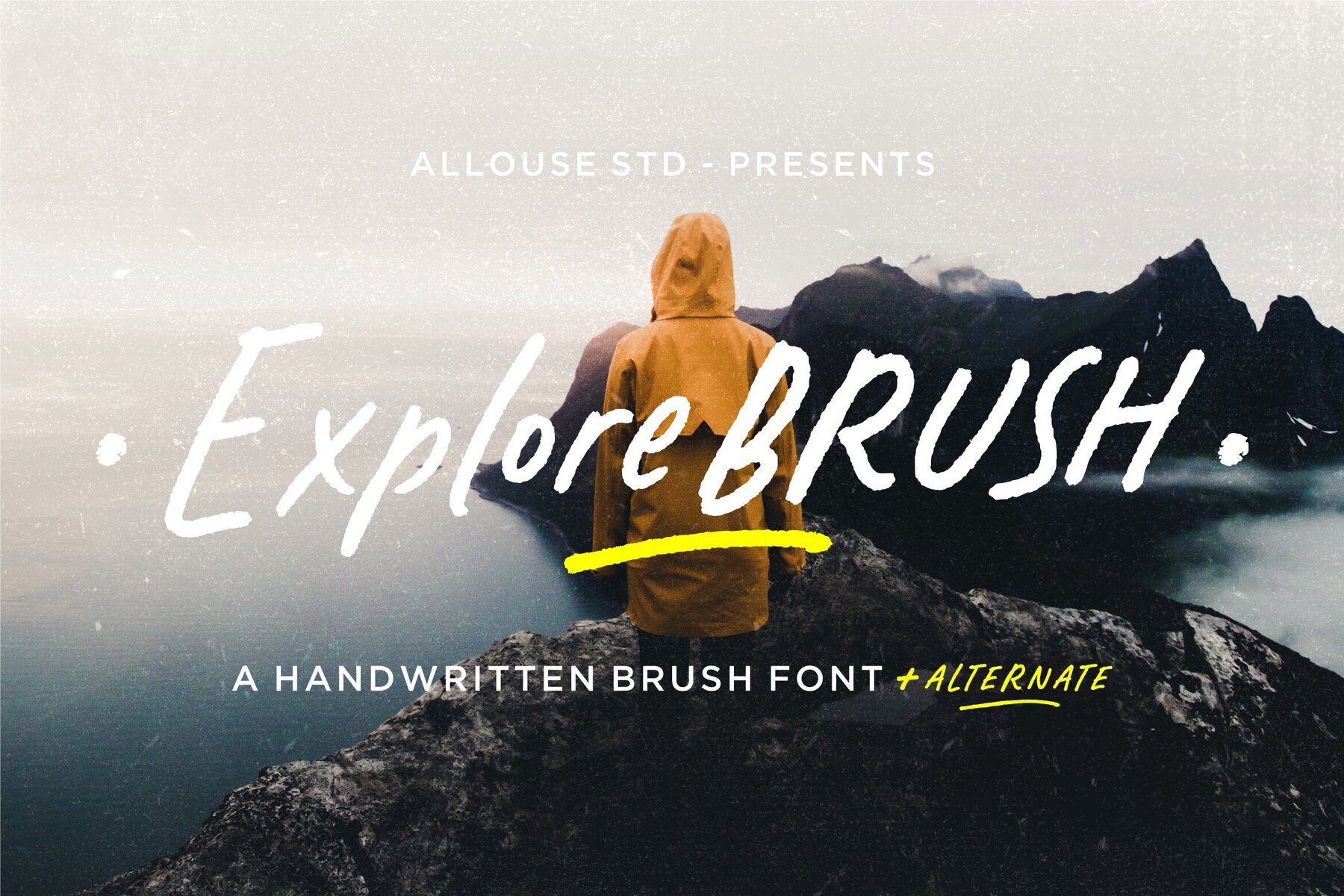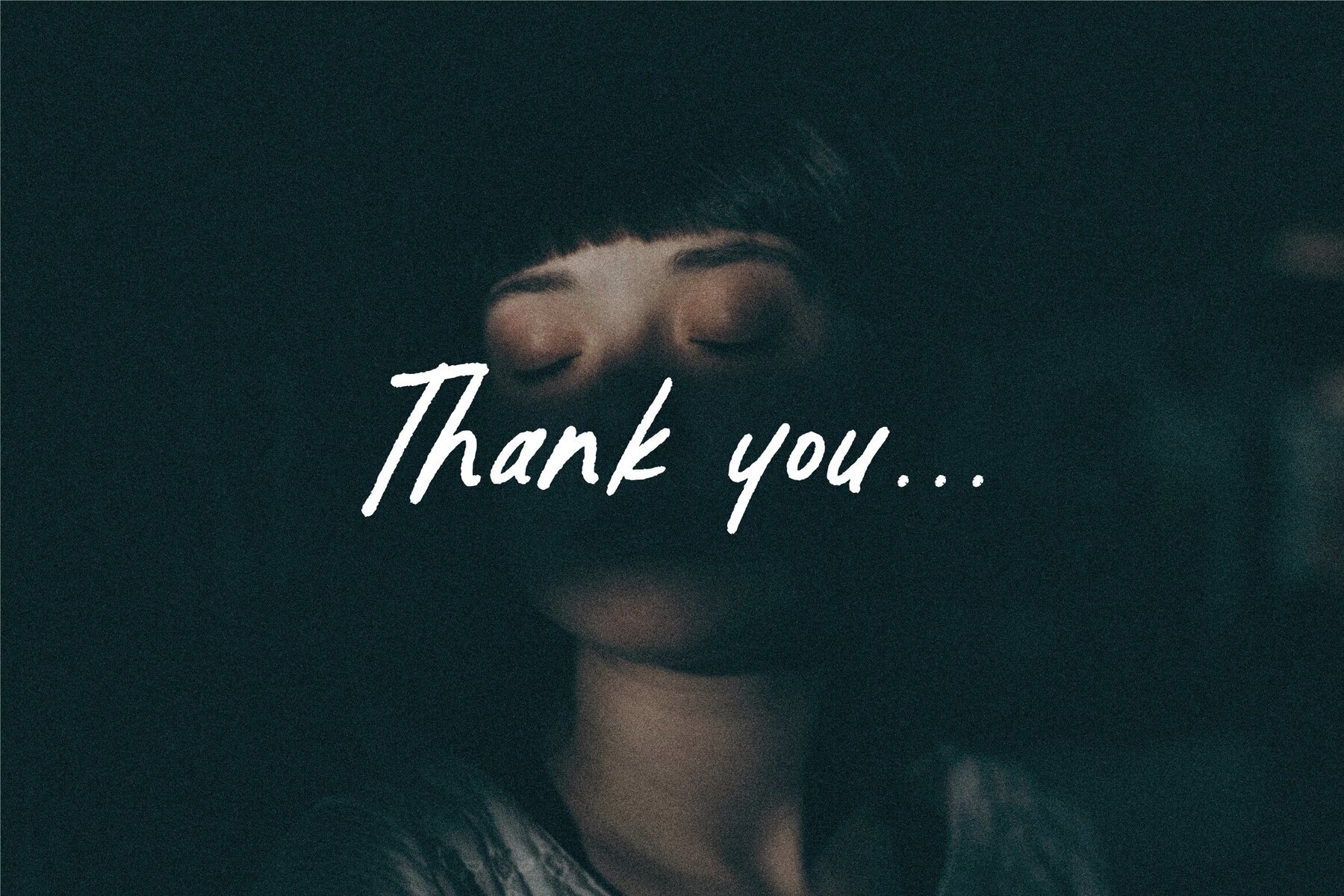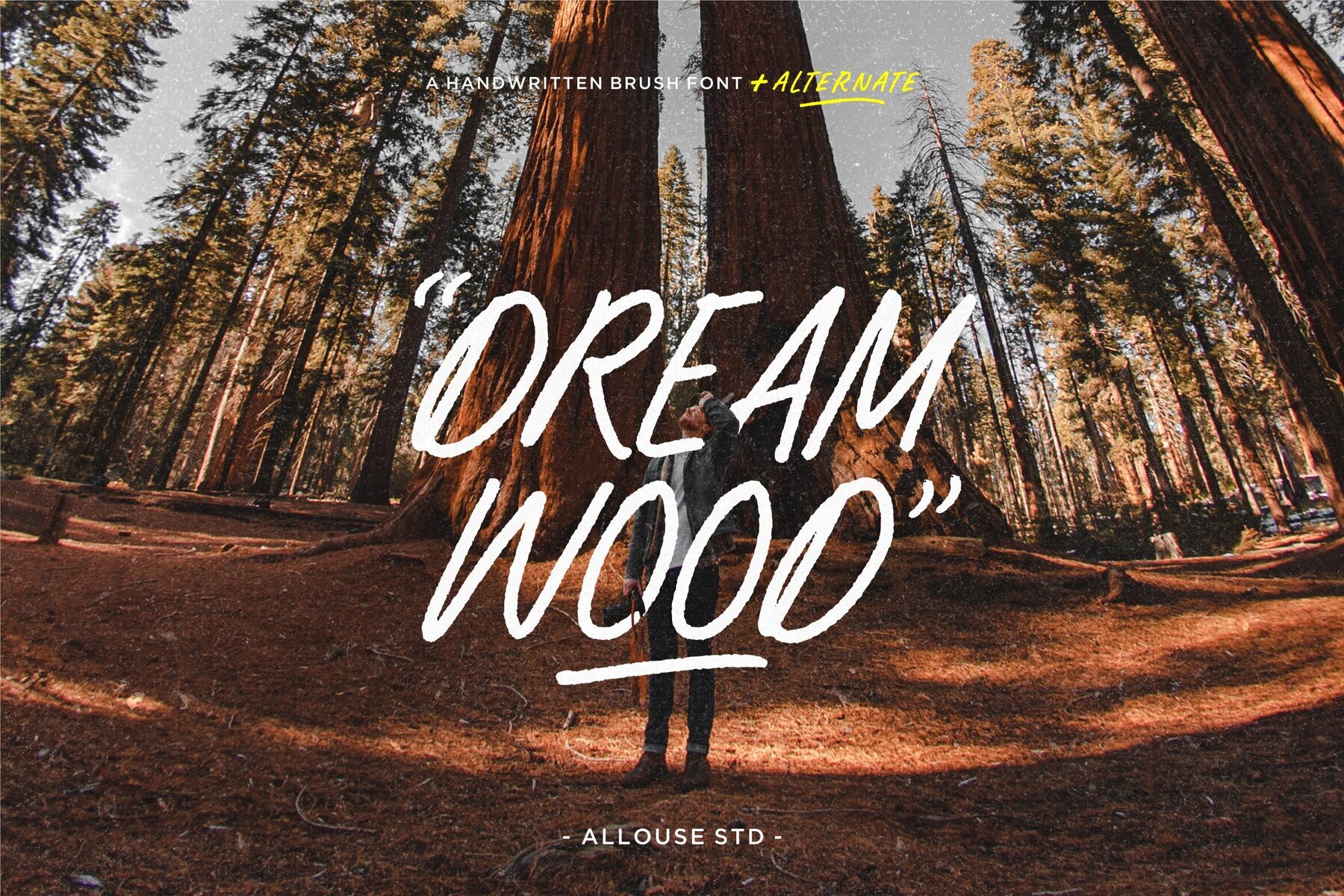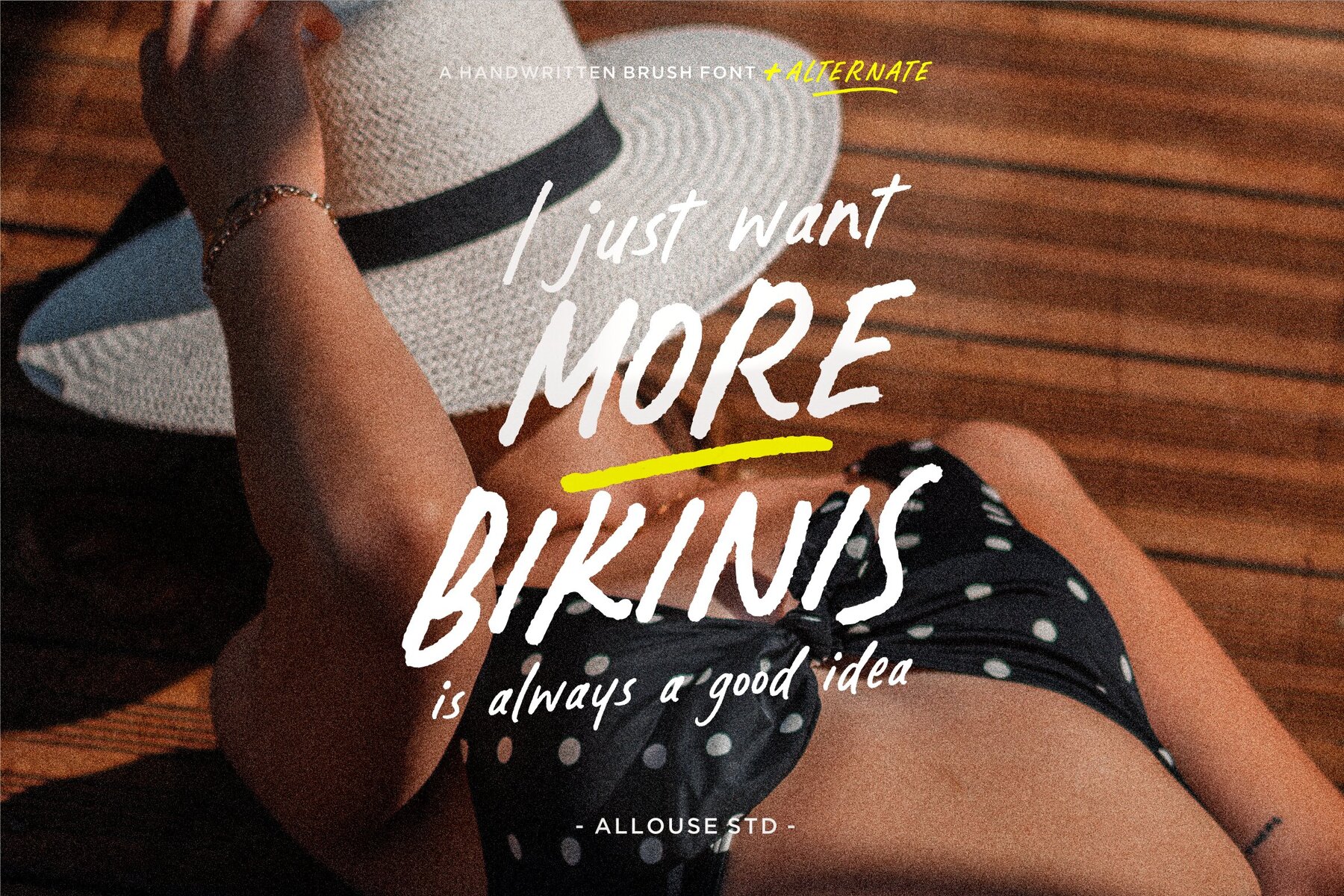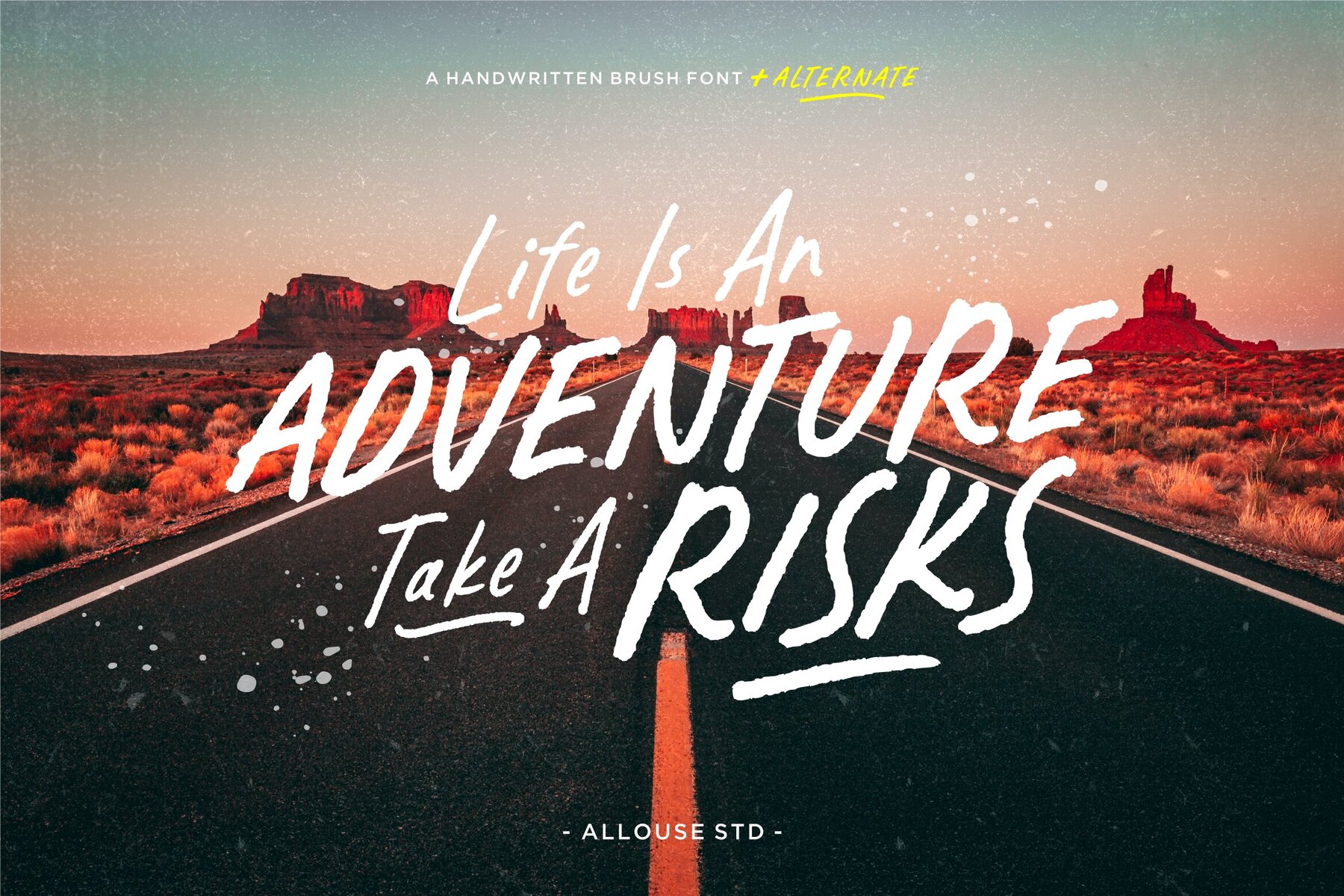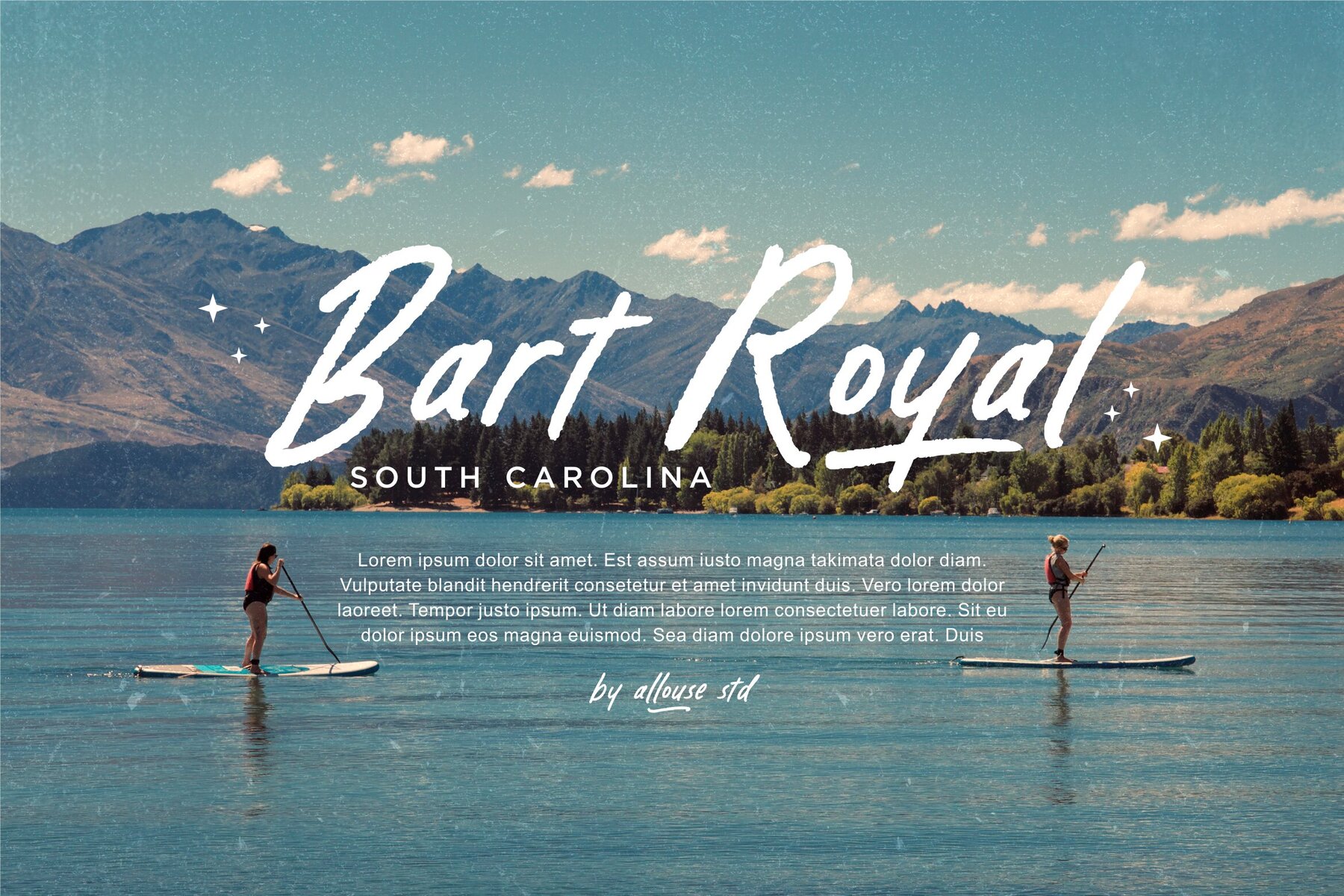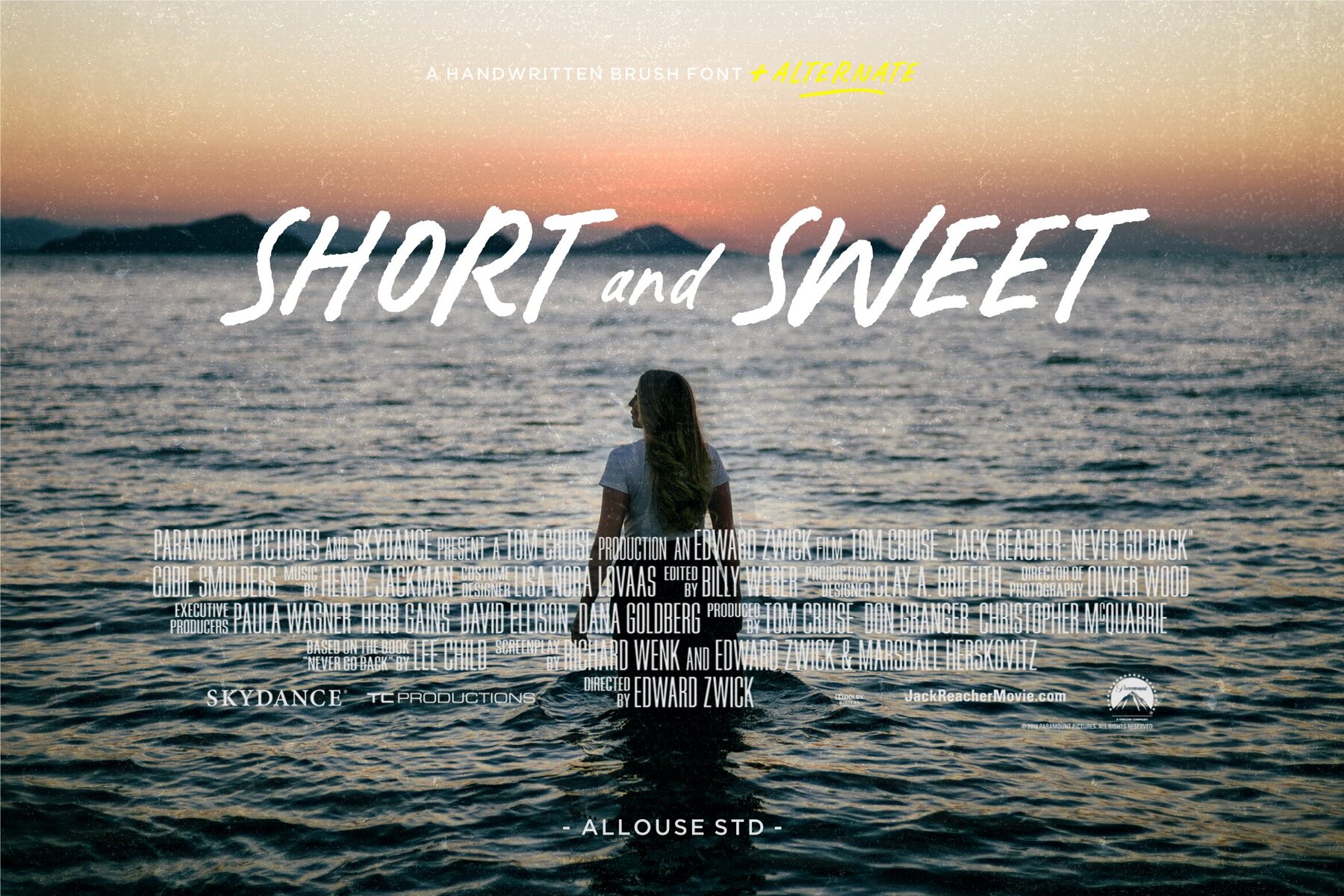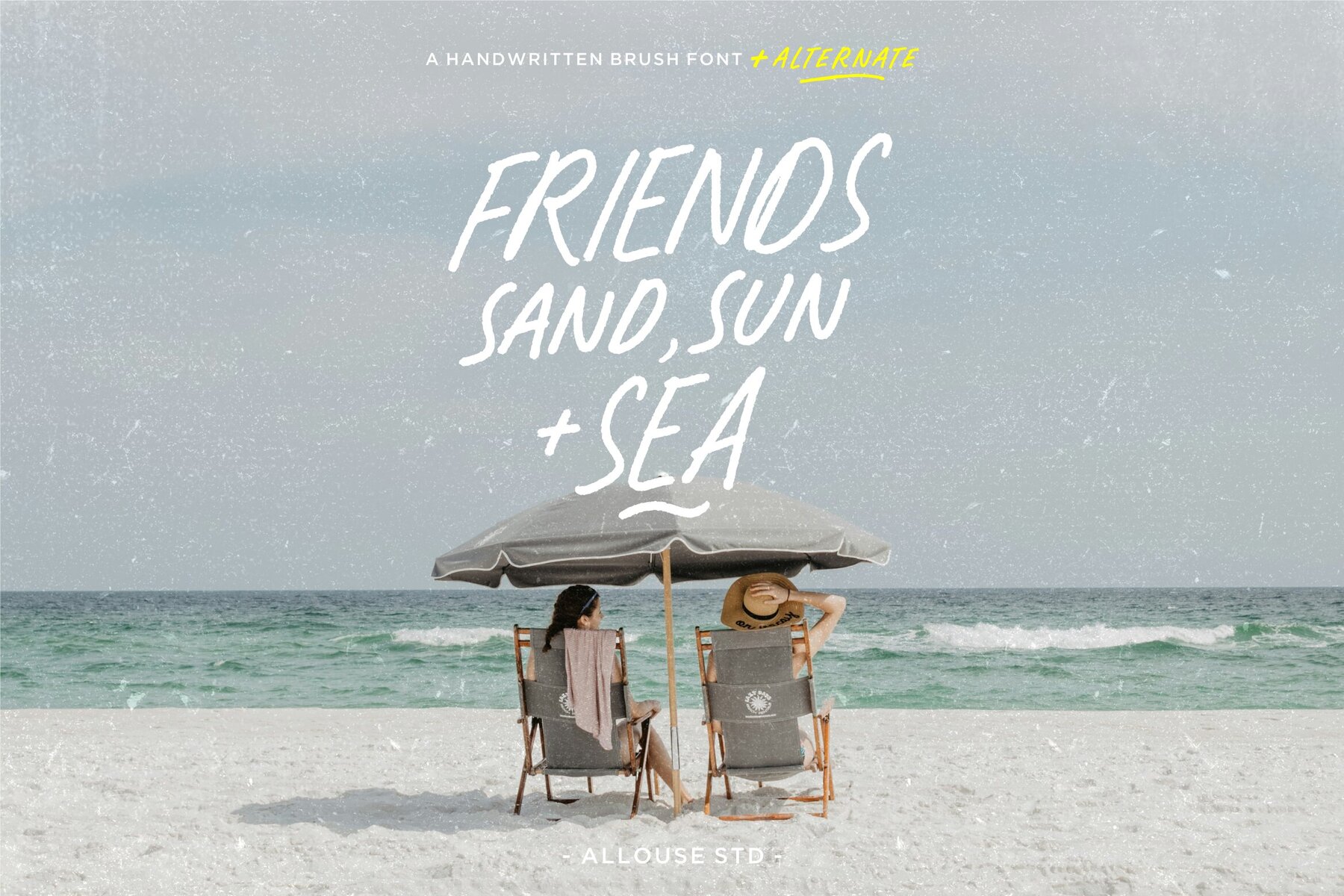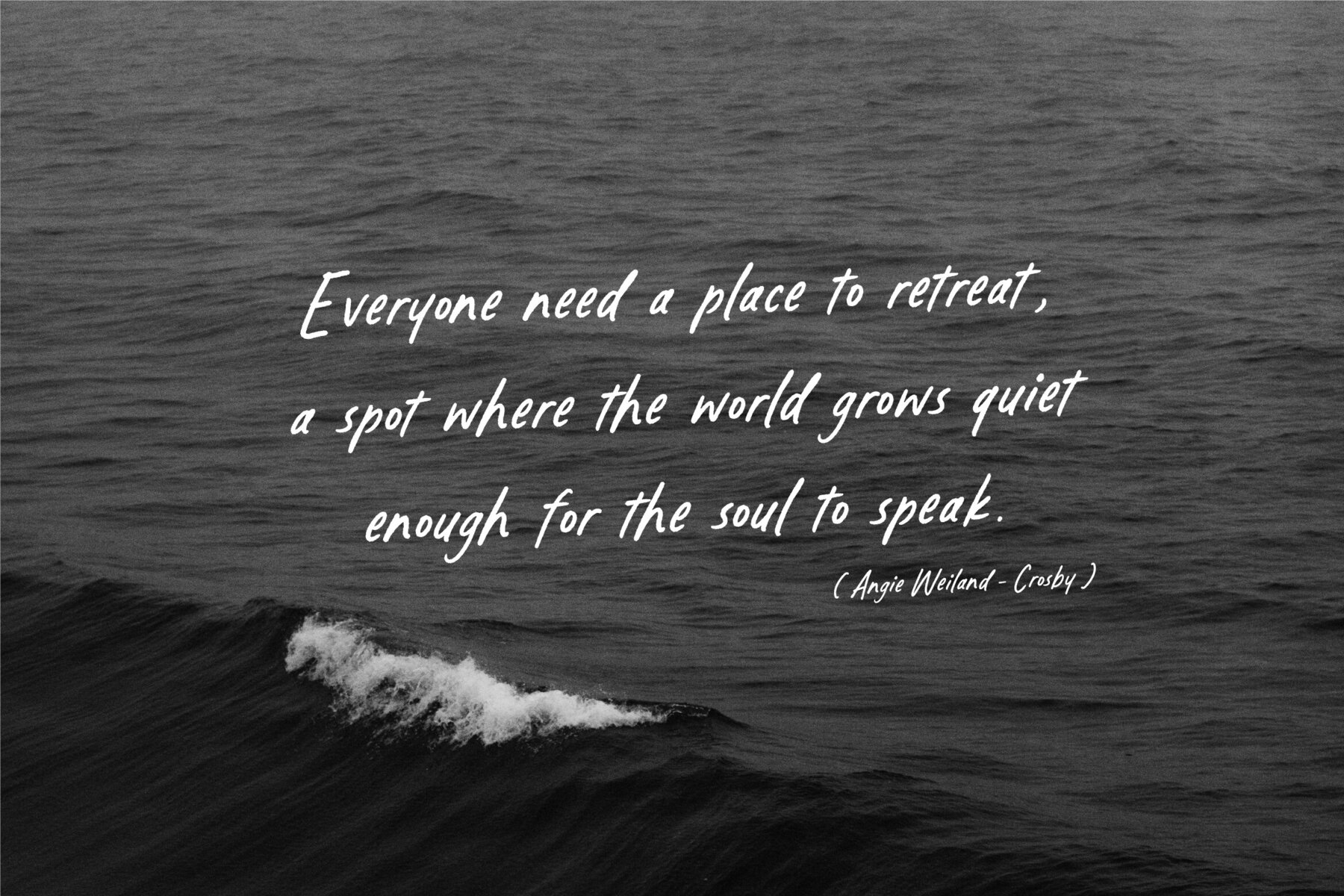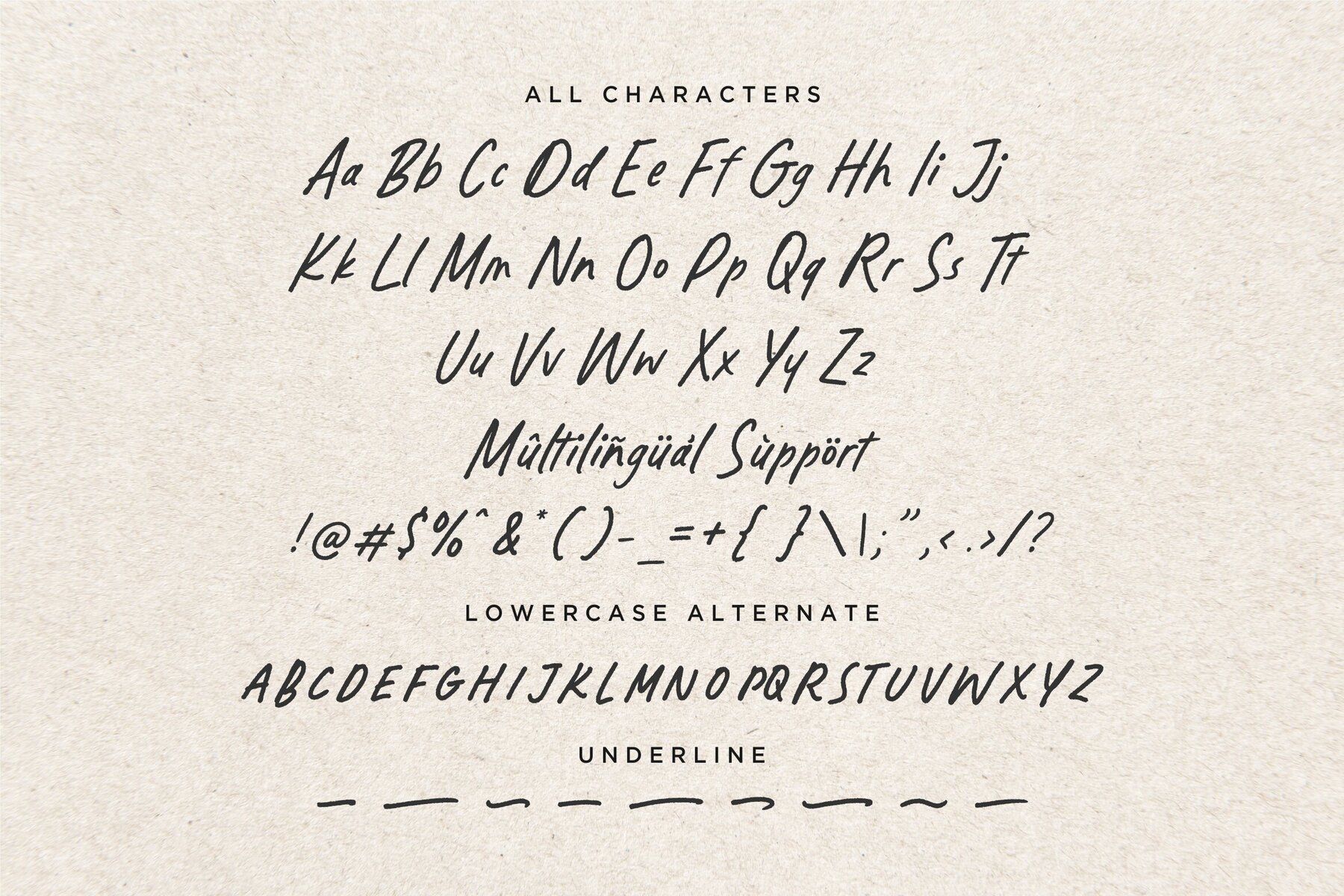
Explorebrush Font
Explorebrush Regular
Explorebrush is a captivating handwritten brush font designed to add a personal and artistic touch to your projects. It is ideal for a wide range of applications, from product packaging and branding projects to magazines, social media posts, and wedding invitations. Use it to express words creatively against any background.Explorebrush: Dynamic Handwritten Brush Font